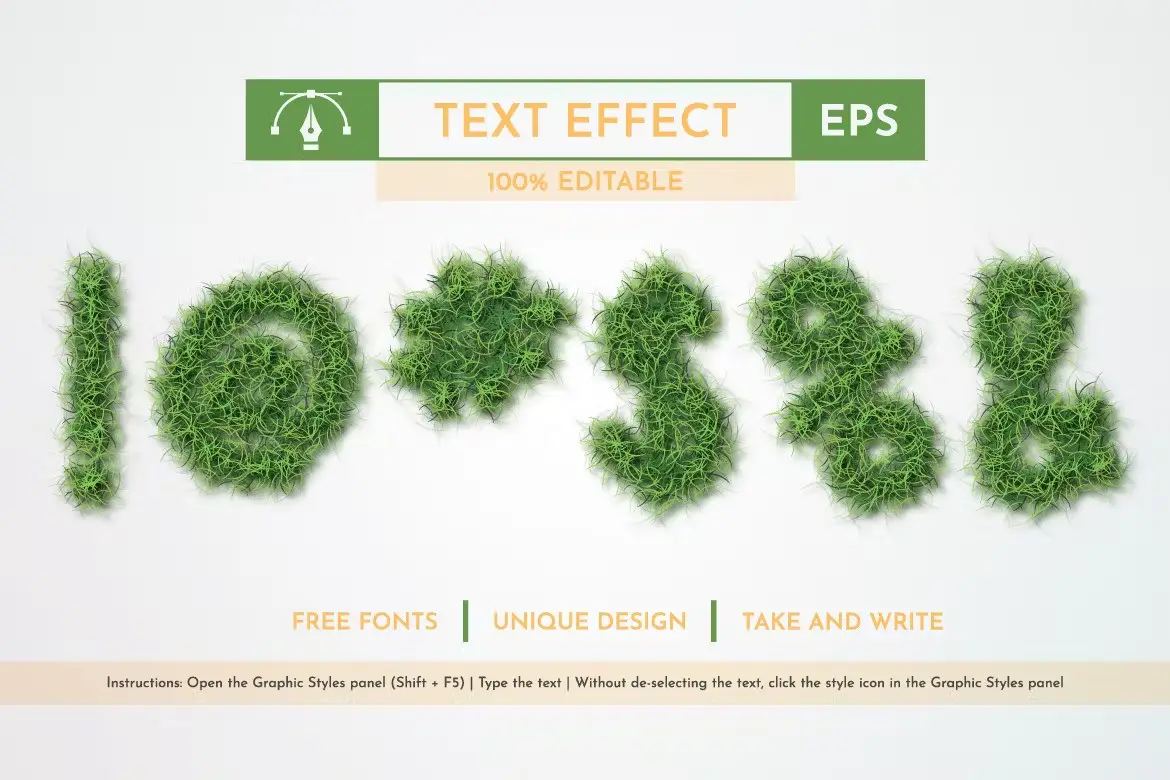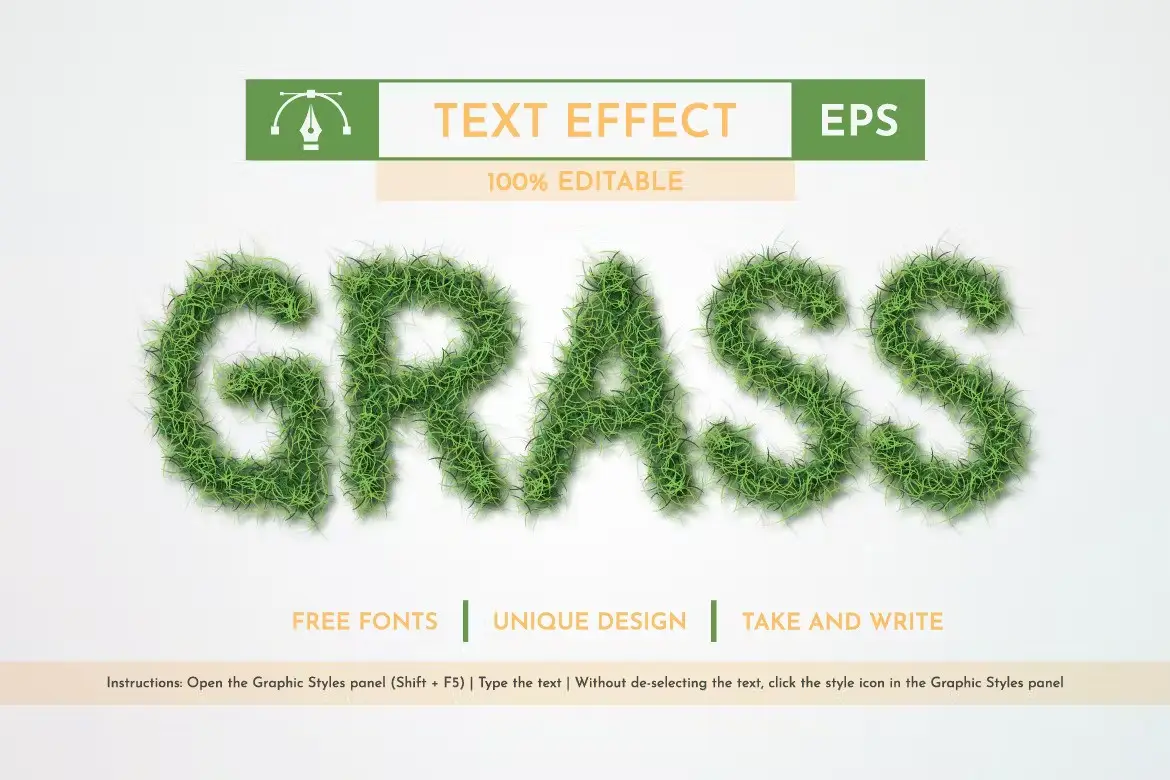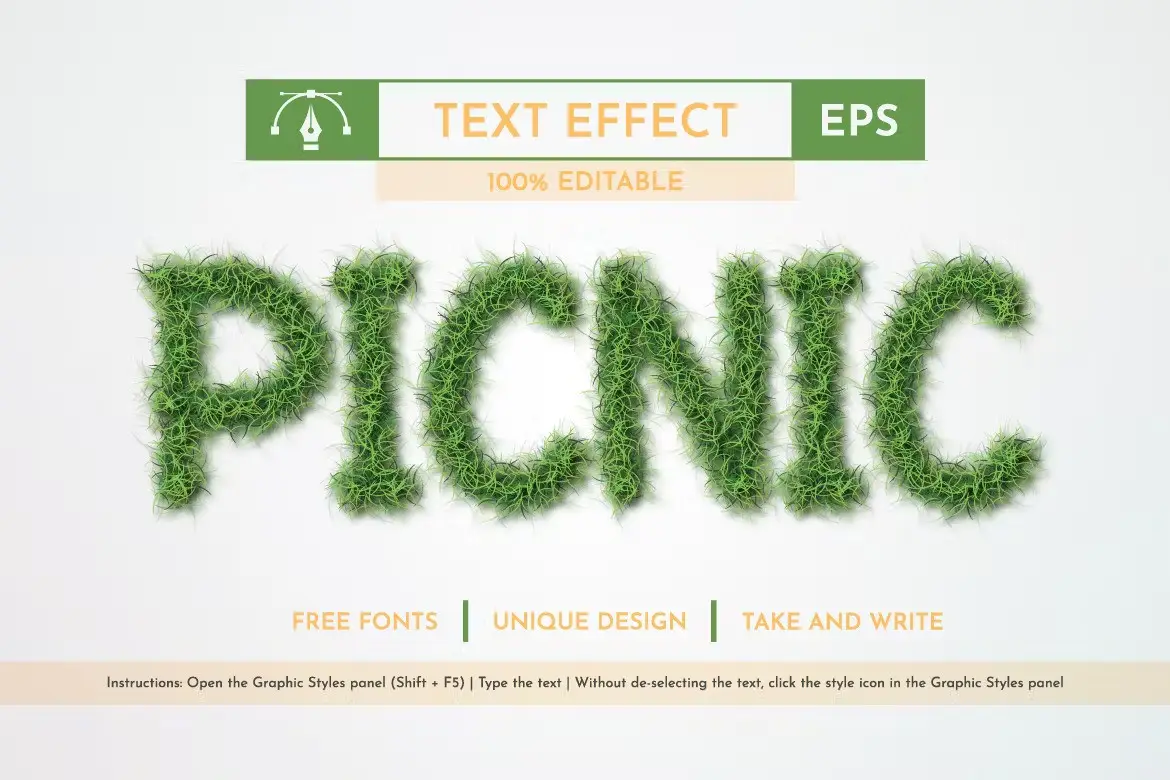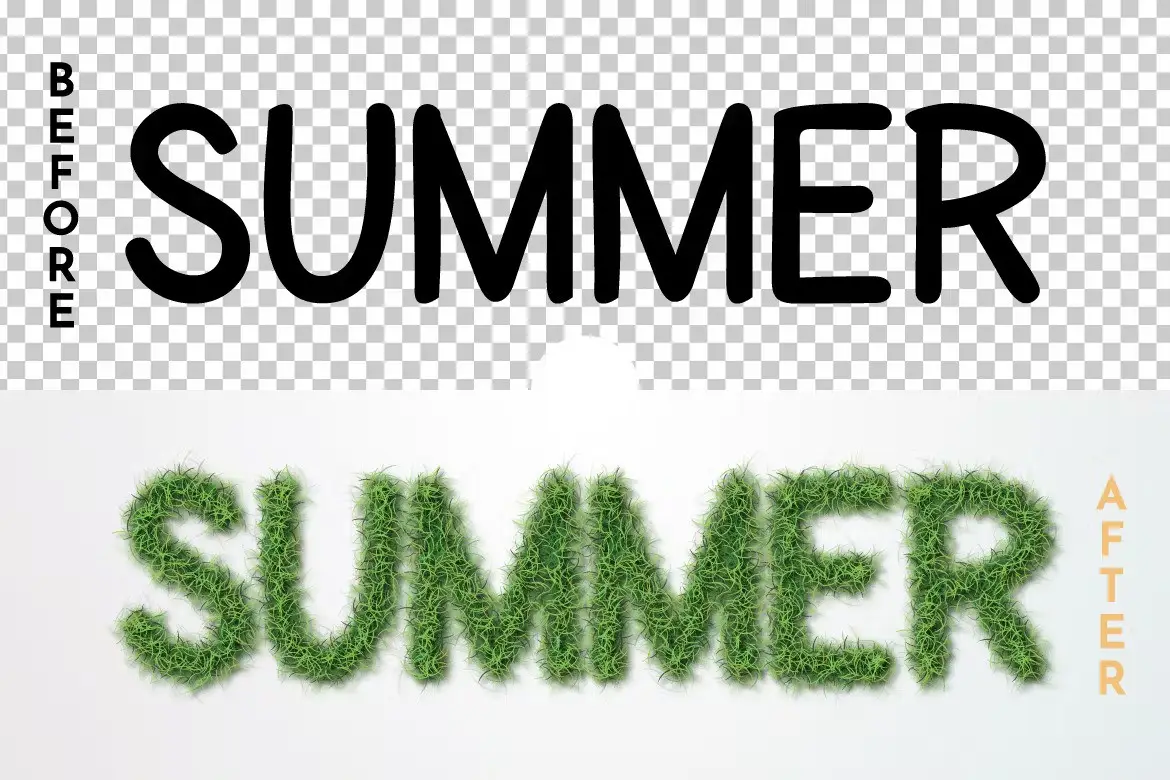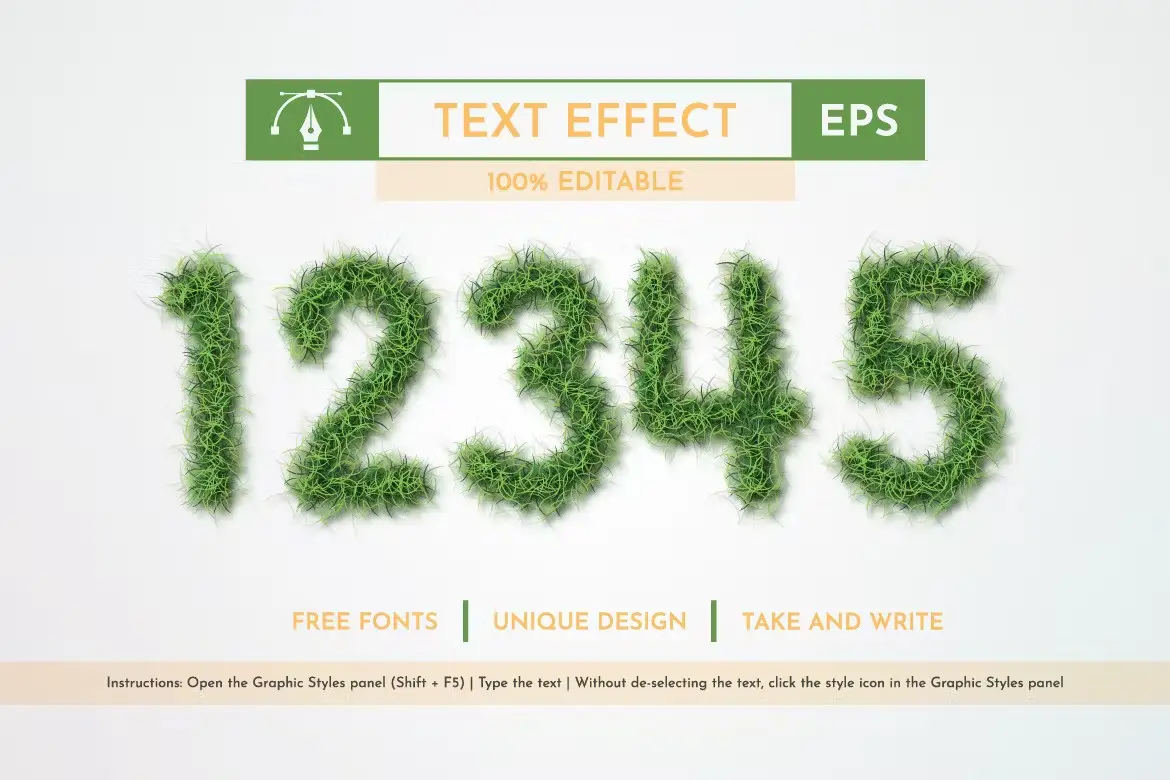
Summer Grass – Editable Text Effect, Font Style
Introducing the Summer Grass editable text effect! This unique font style allows you to effortlessly transform your text into a vibrant grass-themed design. Whether you’re working on a summer project, a nature-inspired design, or simply want to add a creative touch, this text effect is perfect for you.
The Summer Grass text effect is designed for anyone looking to enhance their projects with a fresh and lively aesthetic. With its vector format, you can create stunning visuals without worrying about size limitations. This effect is ideal for graphic designers, marketers, and anyone who values creativity in their work.
- ✅ Editable Vector Format → Easily customize your text without losing quality.
- ✅ Creative Freedom → Unleash your imagination and express your ideas uniquely.
The Summer Grass text effect stands out due to its versatility and ease of use. It’s trusted by designers worldwide who appreciate its quality and creative potential. This text effect not only enhances your designs but also saves you time, allowing you to focus on what truly matters—your creativity!